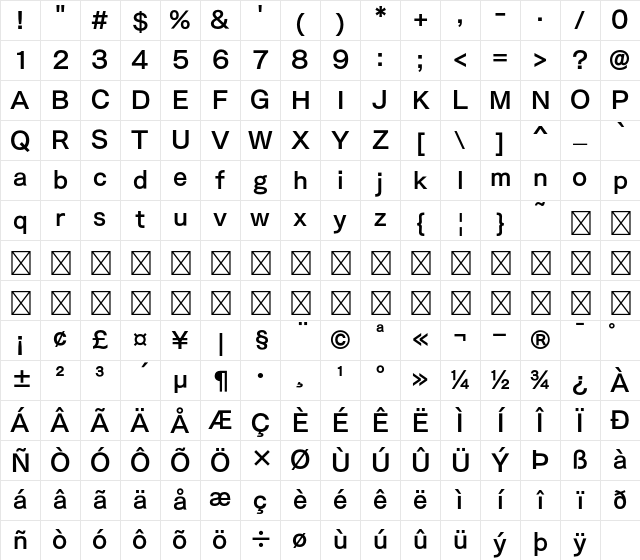
FOT-NewCezanne Pro DB
Style: DB
Designer: Fontworks Japan, Inc.
Design Context for FOT-NewCezanne Pro
FOT-NewCezanne Pro is a composed and adaptable typeface that performs quietly and consistently across a wide range of design contexts.